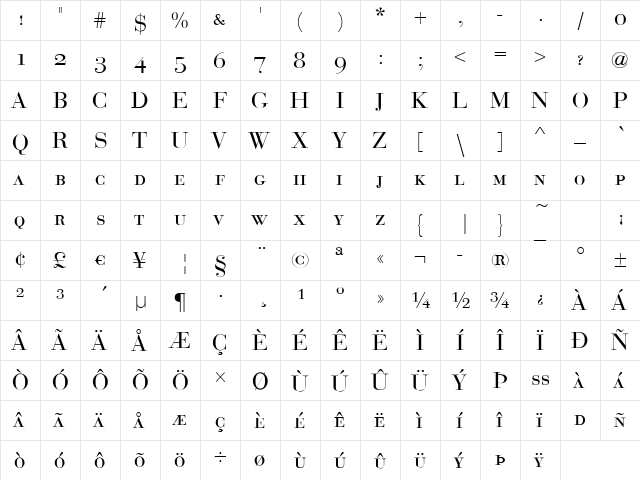
Bodoni-Display-Caps Regular
Design Context for Bodoni-Display-Caps Typeface
Bodoni-Display-Caps is built around its visual character rather than neutral utility — its distinctive forms are designed to make an impression at display sizes.
Font Pairing: Pair with a clean neutral sans-serif for body copy to let Bodoni-Display-Caps's character lead without overwhelming the composition.
Pro Tip: Treat Bodoni-Display-Caps as the centrepiece of your typographic hierarchy. One strong heading set in a decorative face can carry an entire layout.